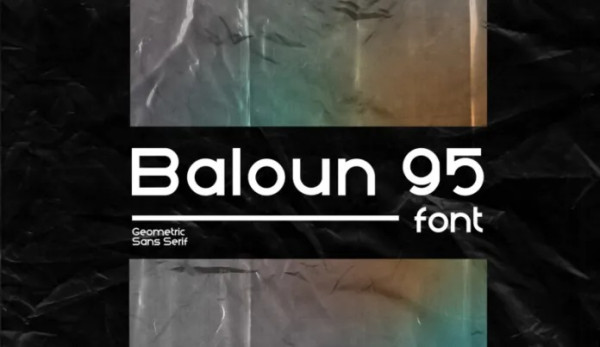
Baloun 95 Font
Baloun 95 Font is an sans serif display font, and with a style that is very different from the others. Made from font designer named Tiago Oliveira. Ideal for branding, marketing materials and much more! Baloun95 has a extended Latin alphabets whit 170+ glyphs.